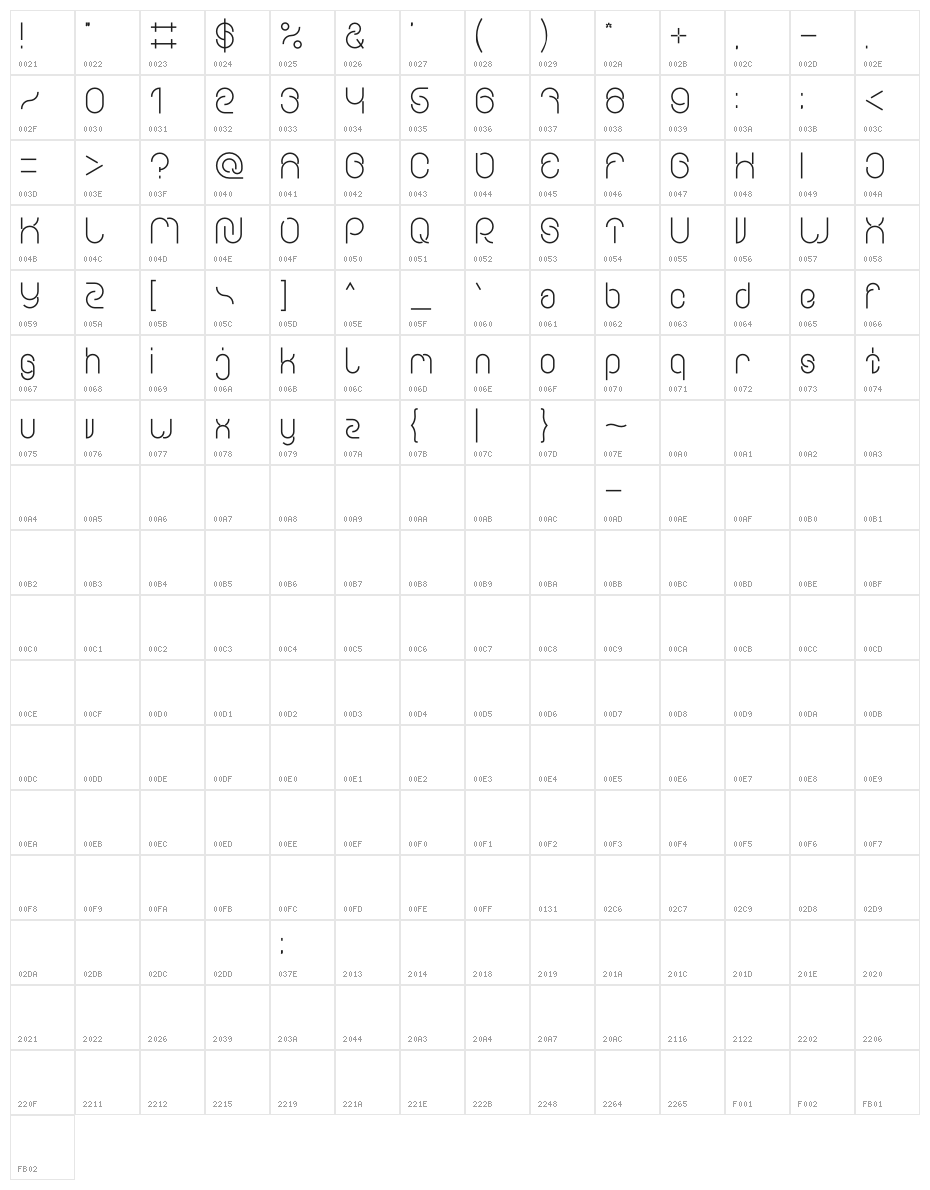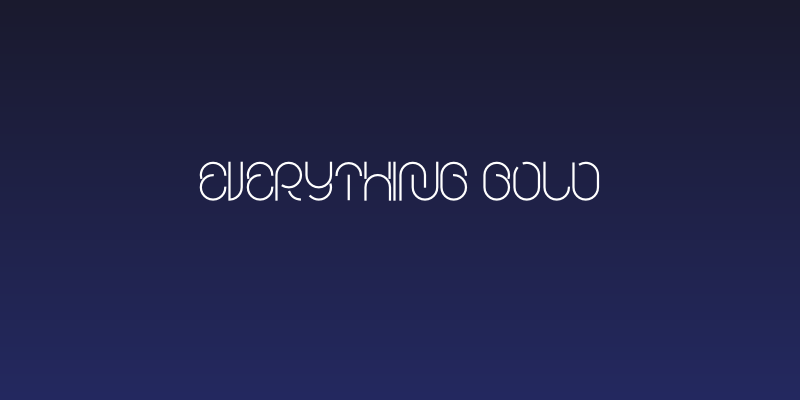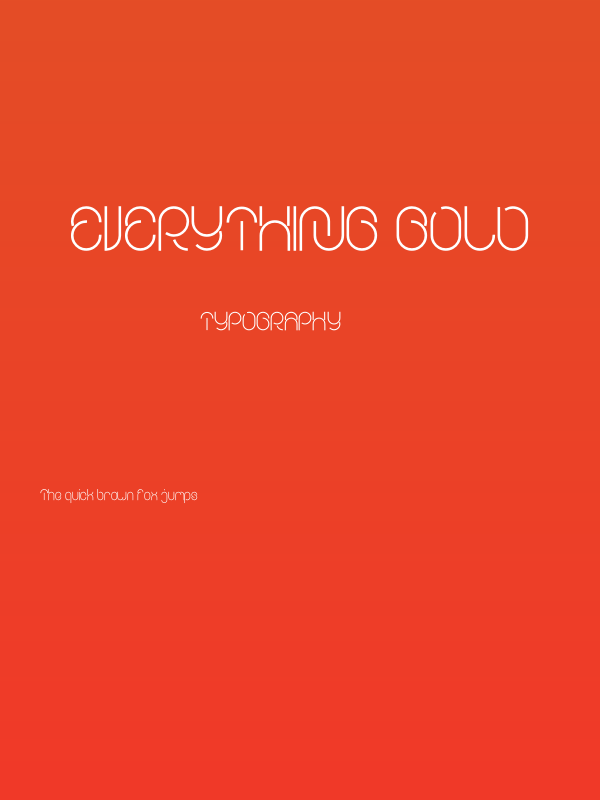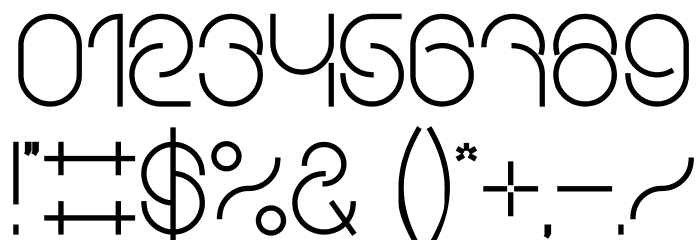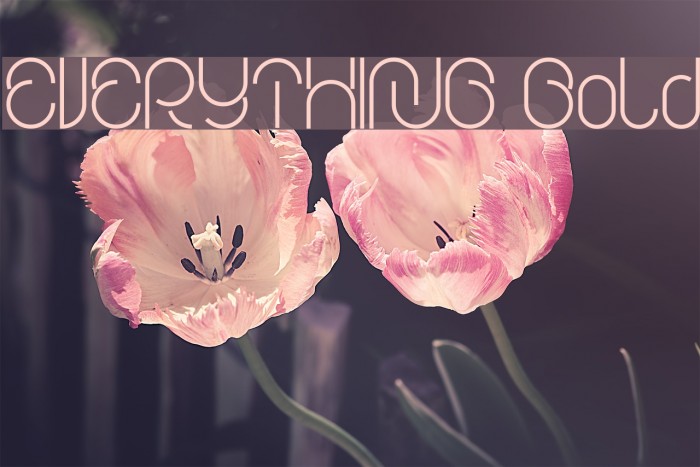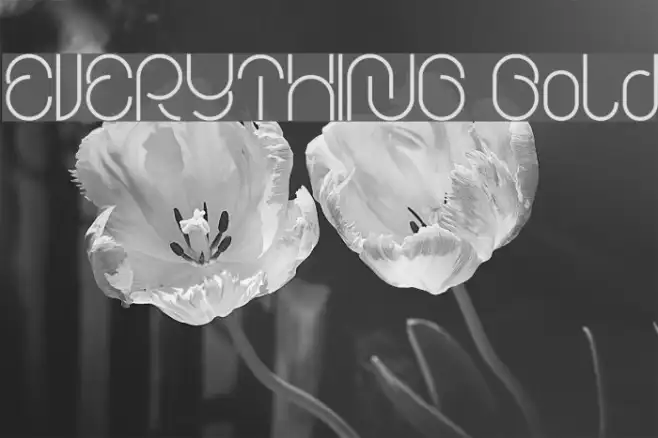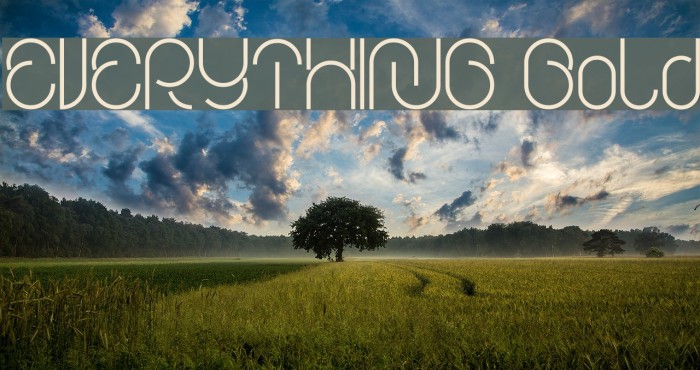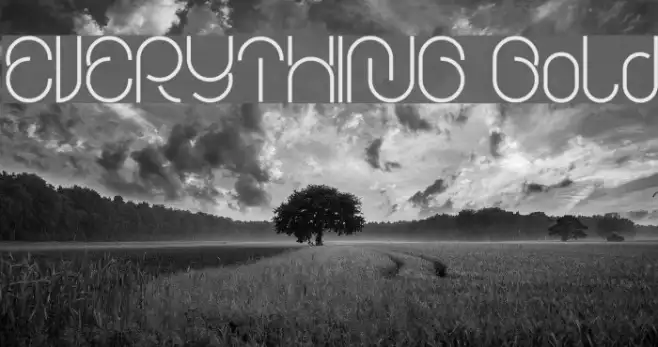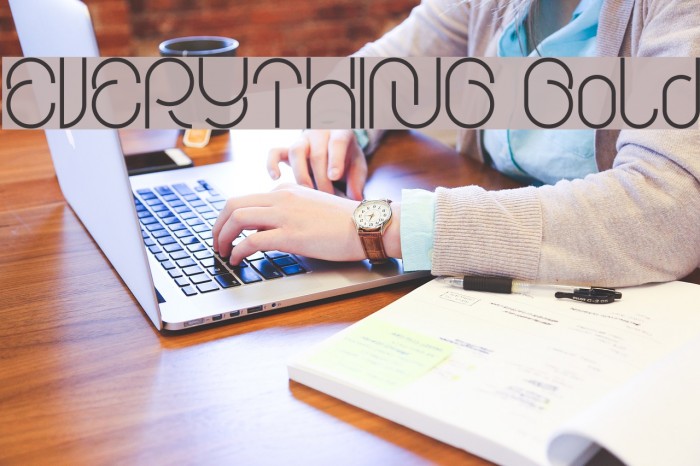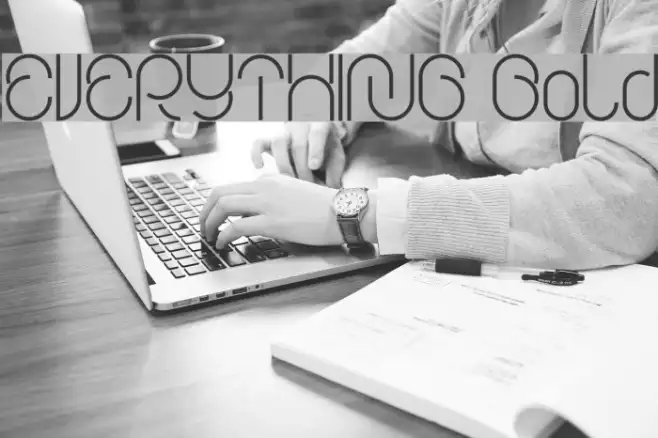
EVERYTHING Bold Font
EVERYTHING Bold Description
This font features a unique and modern design with a geometric and futuristic aesthetic. The characters are composed of clean, continuous lines that form rounded shapes, giving it a sleek and minimalistic appearance. The uppercase and lowercase letters maintain a consistent style, with smooth curves and a uniform stroke width. Numbers and special characters follow the same design principles, ensuring a cohesive look across all elements. The font's distinct style makes it suitable for creative and contemporary projects, where a bold and innovative look is desired.
| Use Case | Headlines, Logos, Digital Media |
| Proposed Projects | Ideal for branding, advertising, digital media, and futuristic design projects. |